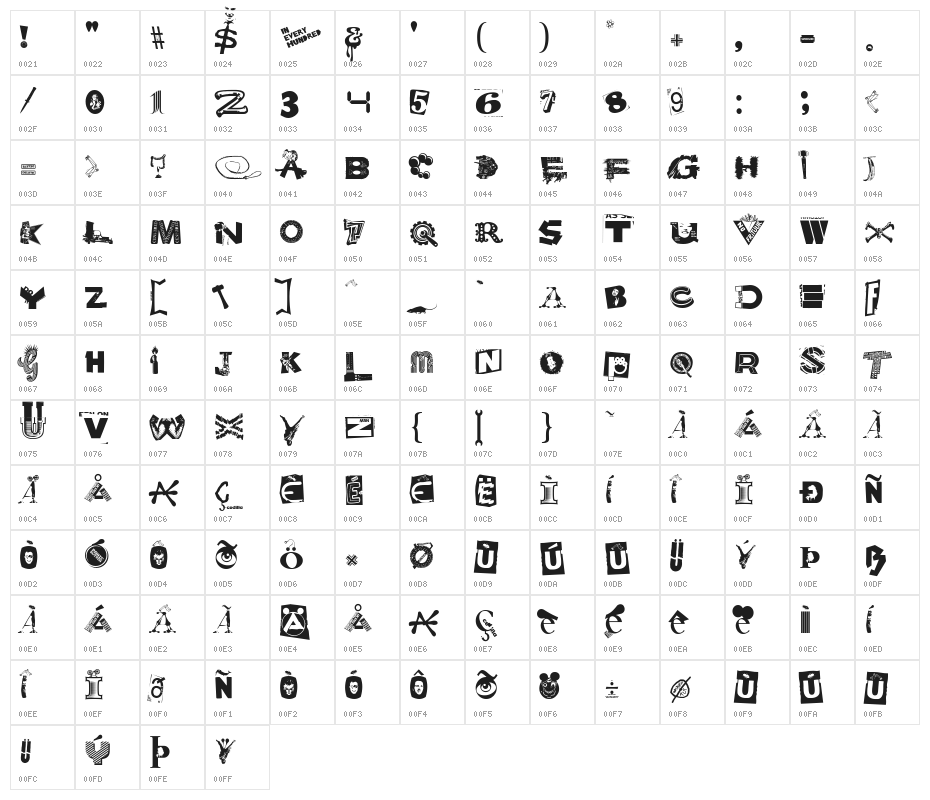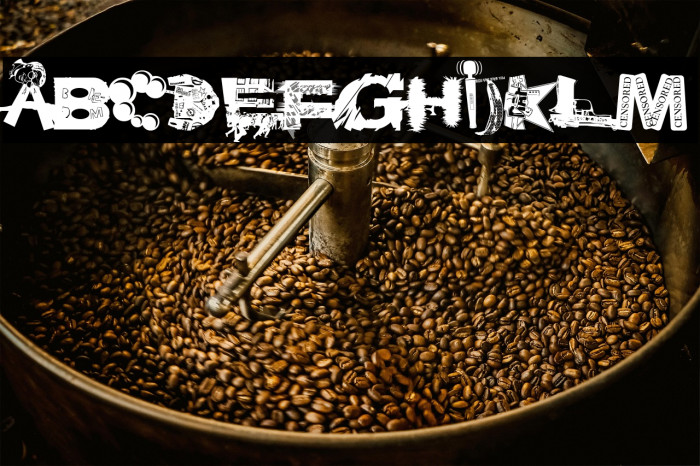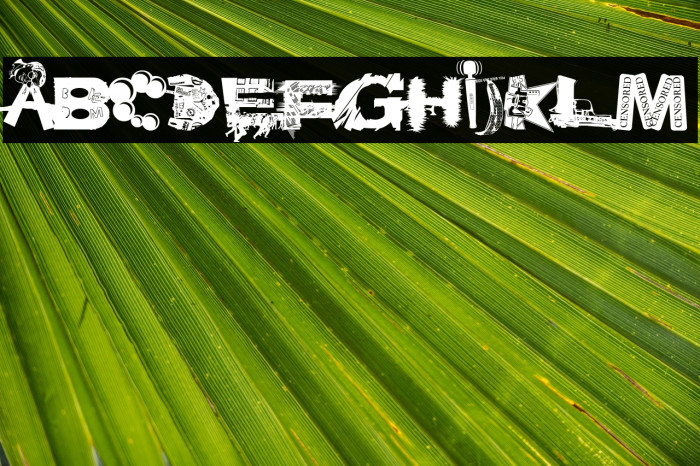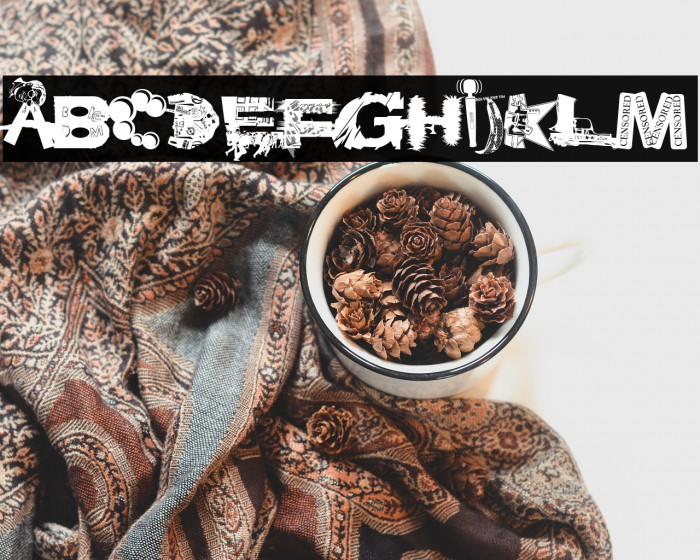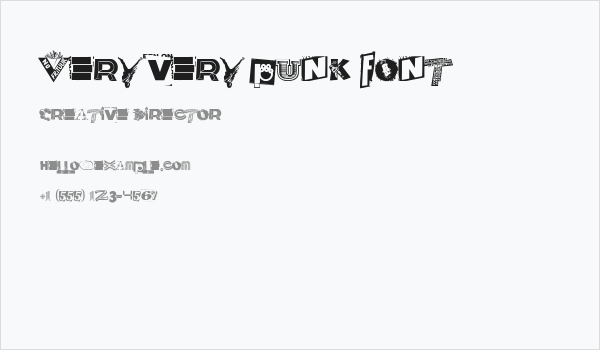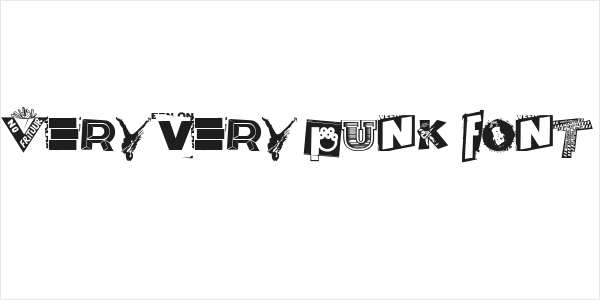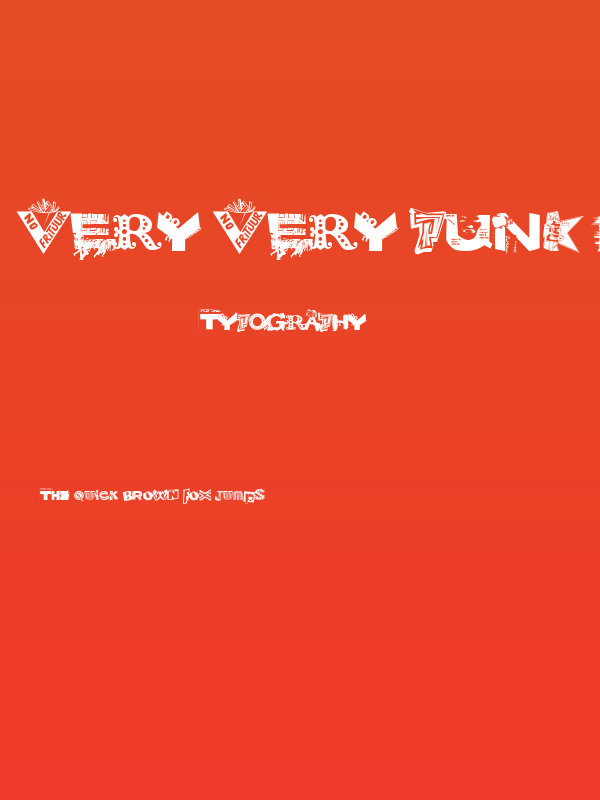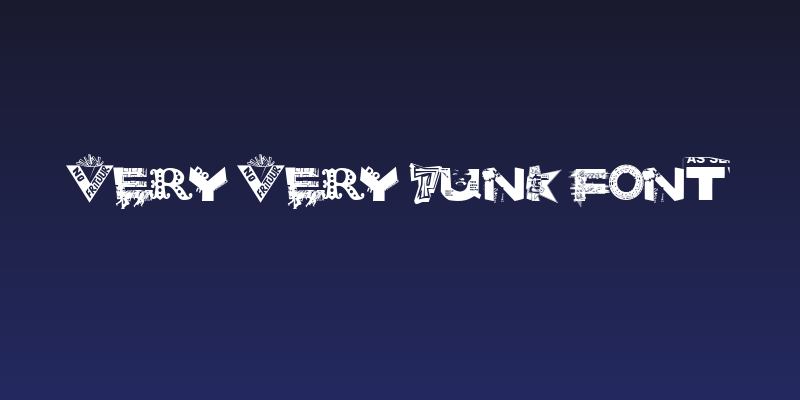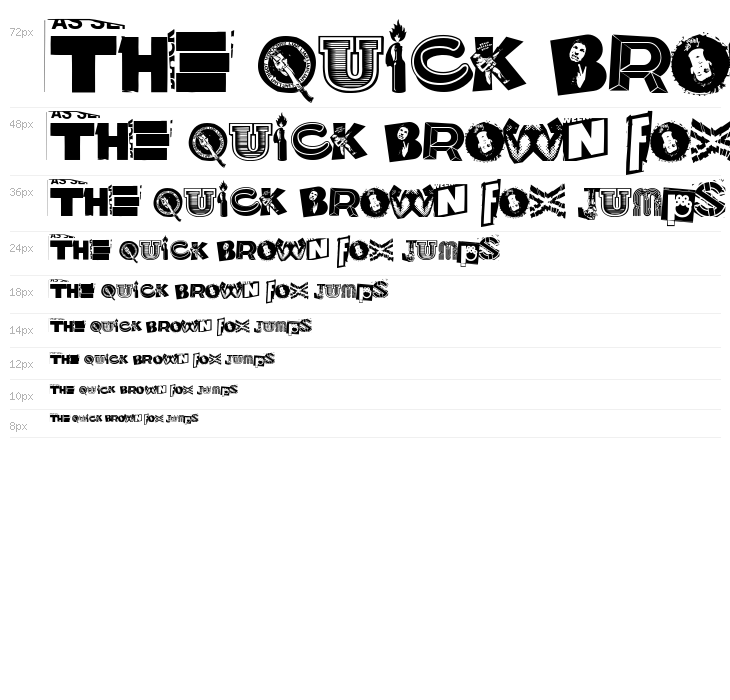
Very very punk font Font
Very very punk font Description
This font is a bold and eclectic display of punk-inspired design, featuring a mix of chaotic and rebellious elements. Each character is uniquely styled with a combination of grunge textures, cut-out shapes, and distressed effects, creating a sense of anarchy and nonconformity. The uppercase and lowercase letters, as well as numbers and special characters, are all distinct, with varying levels of detail and embellishment. This font captures the essence of punk culture with its raw, edgy appearance and unpredictable forms, making it a standout choice for projects that aim to convey a sense of rebellion and individuality.
| Overall Style | Punk, Edgy, Rebellious |
| Use Case | Logos, Posters, Album Covers |
| Proposed Projects | Ideal for music album covers, punk-themed posters, edgy branding, and alternative fashion labels. |